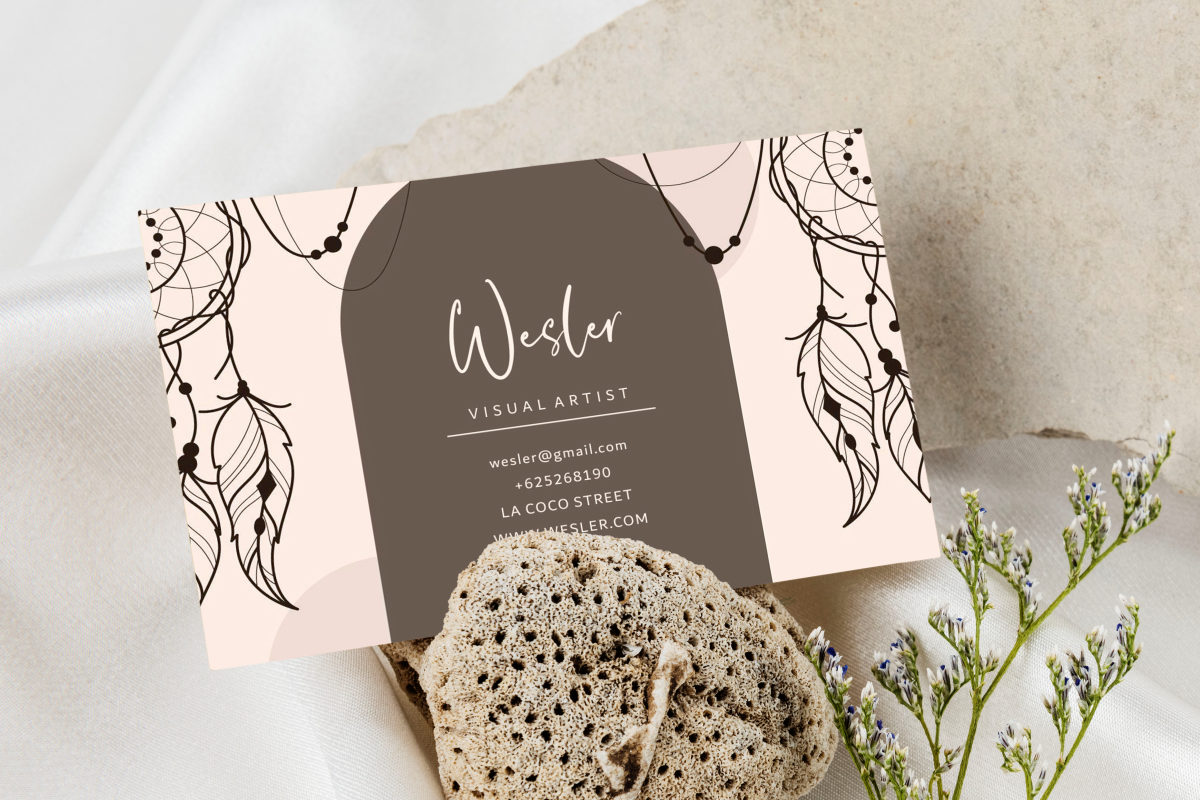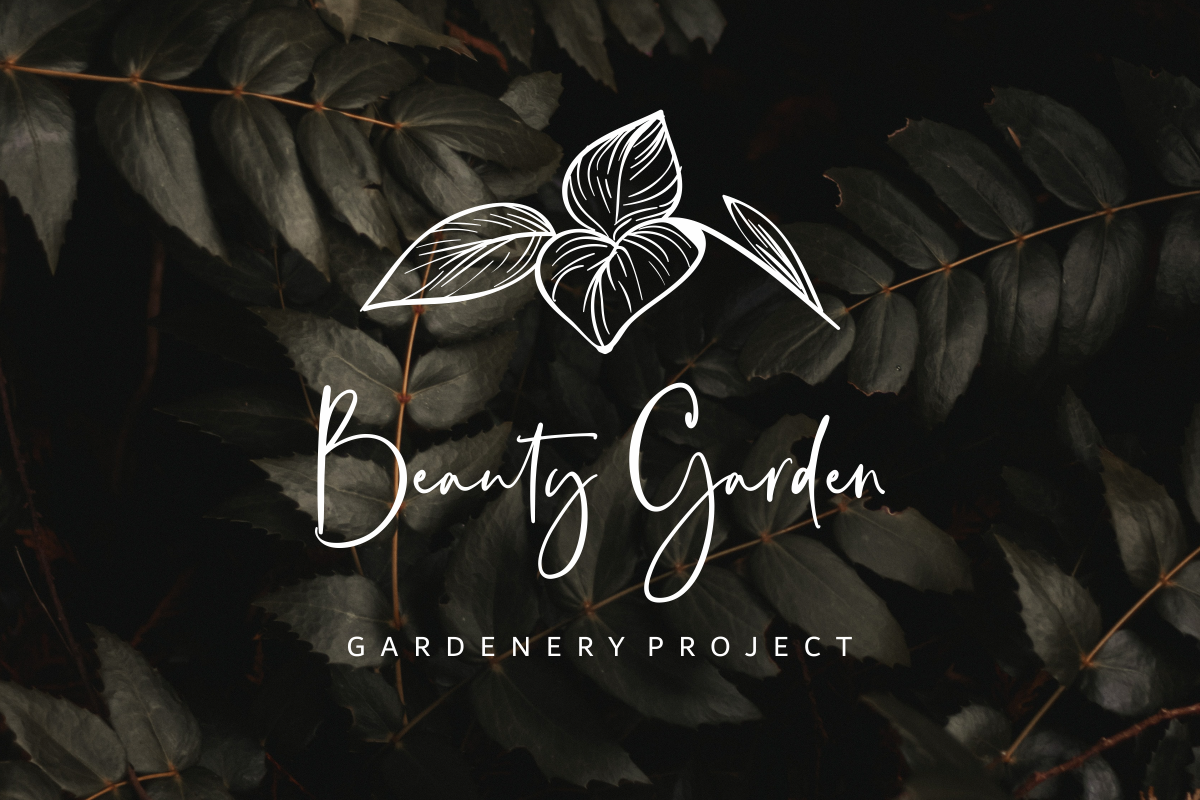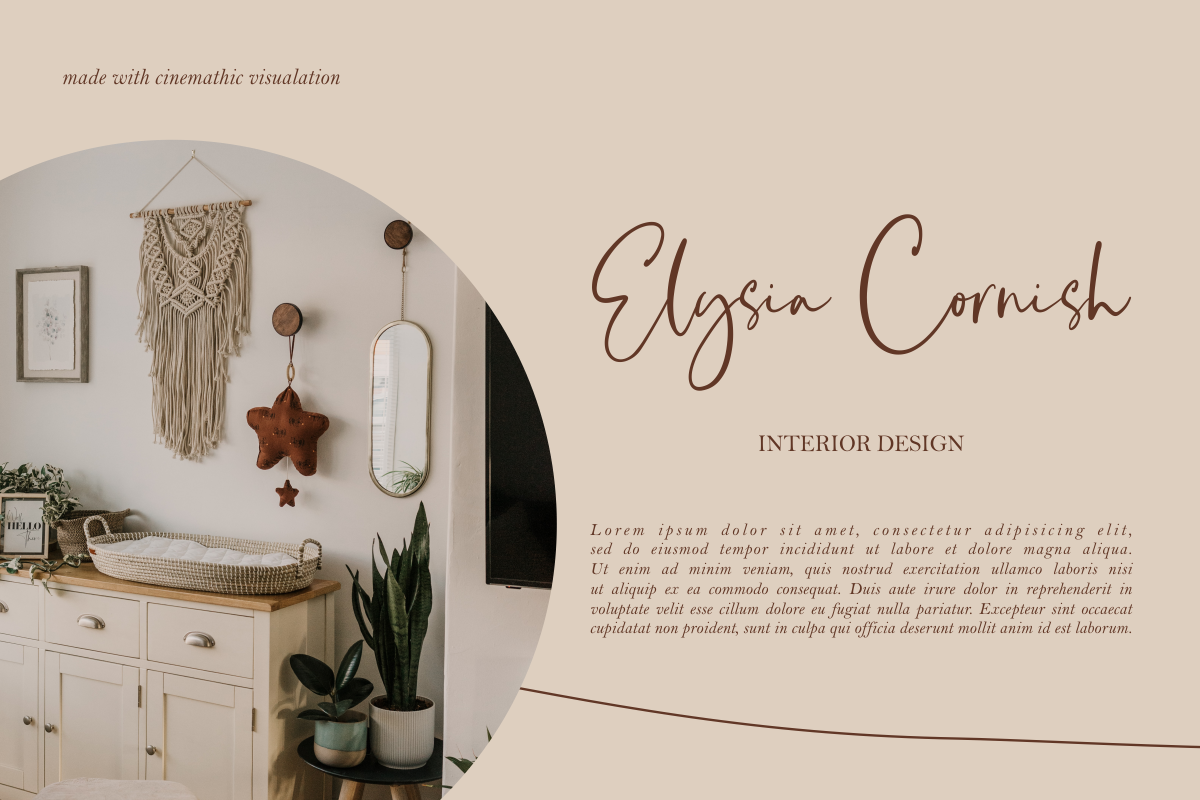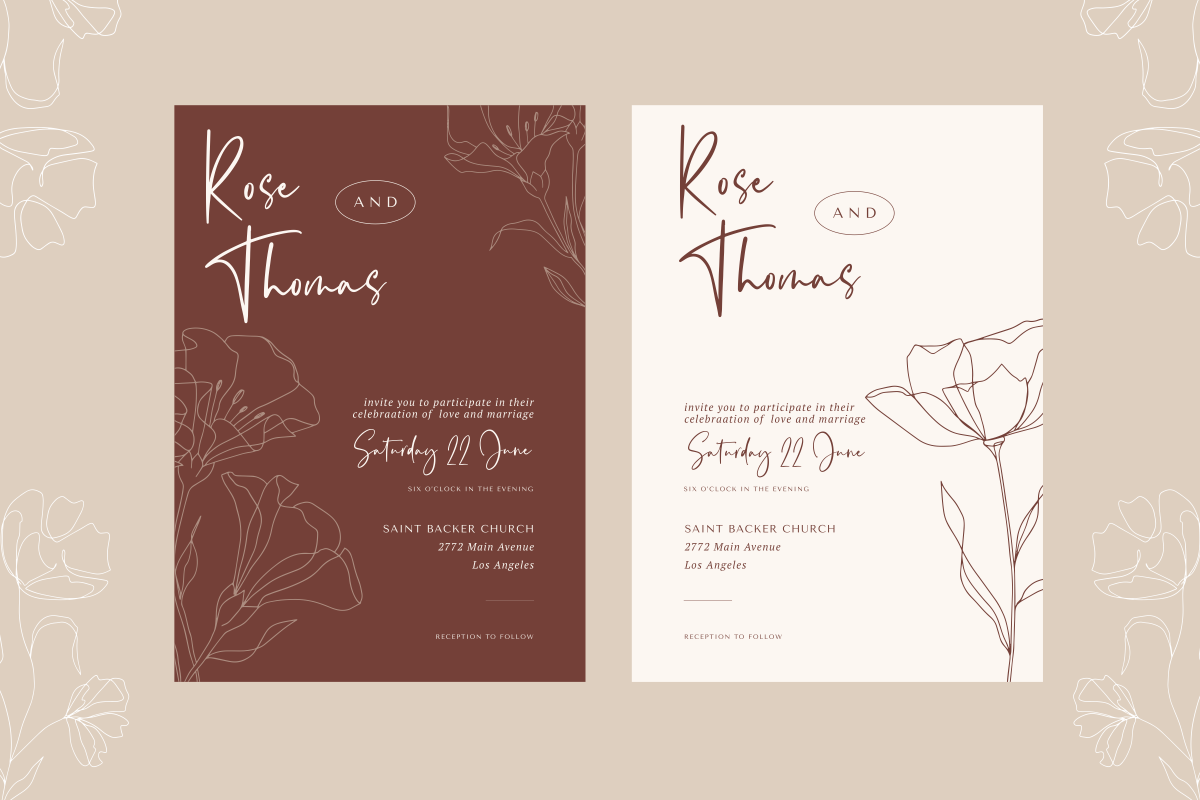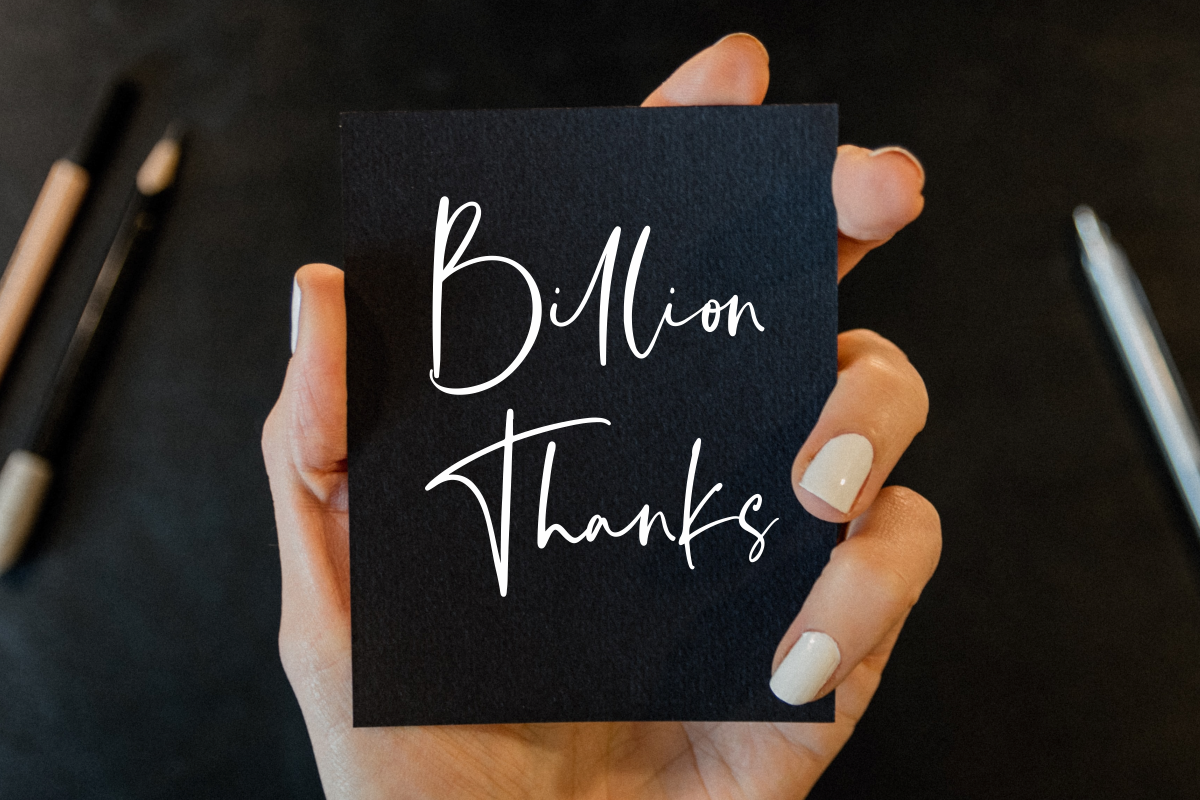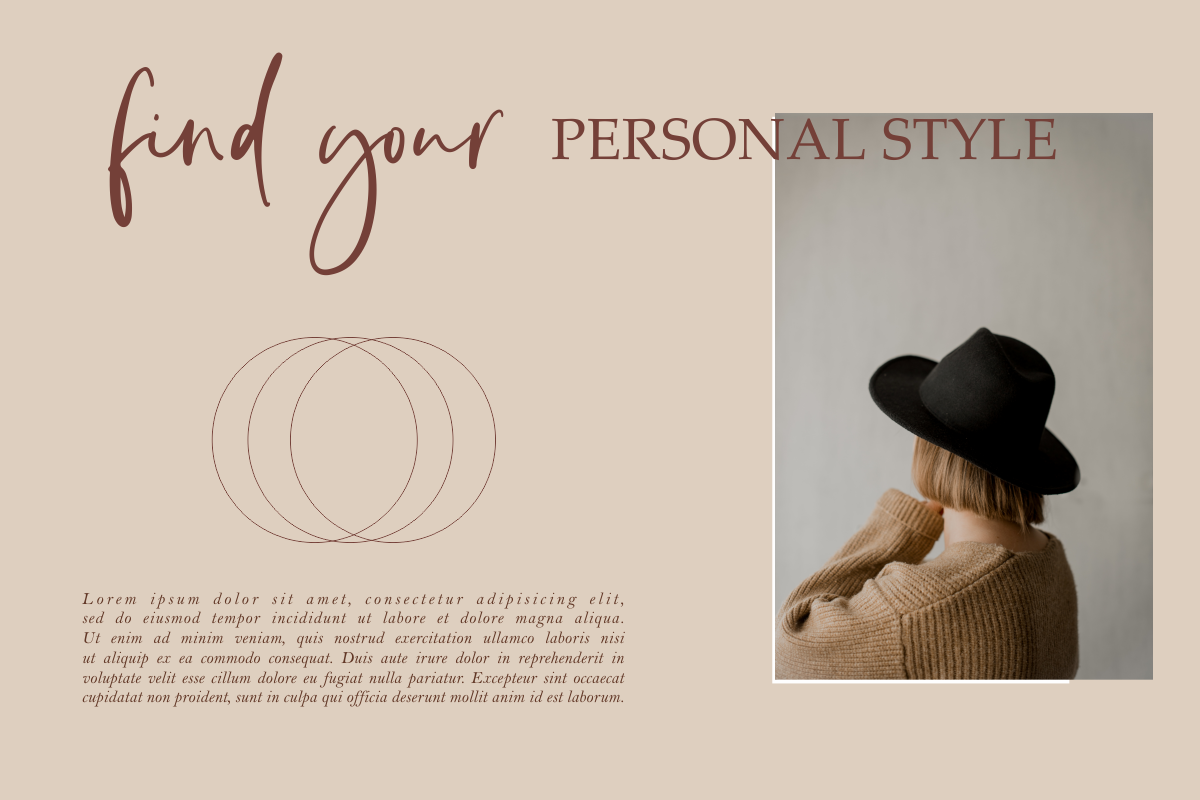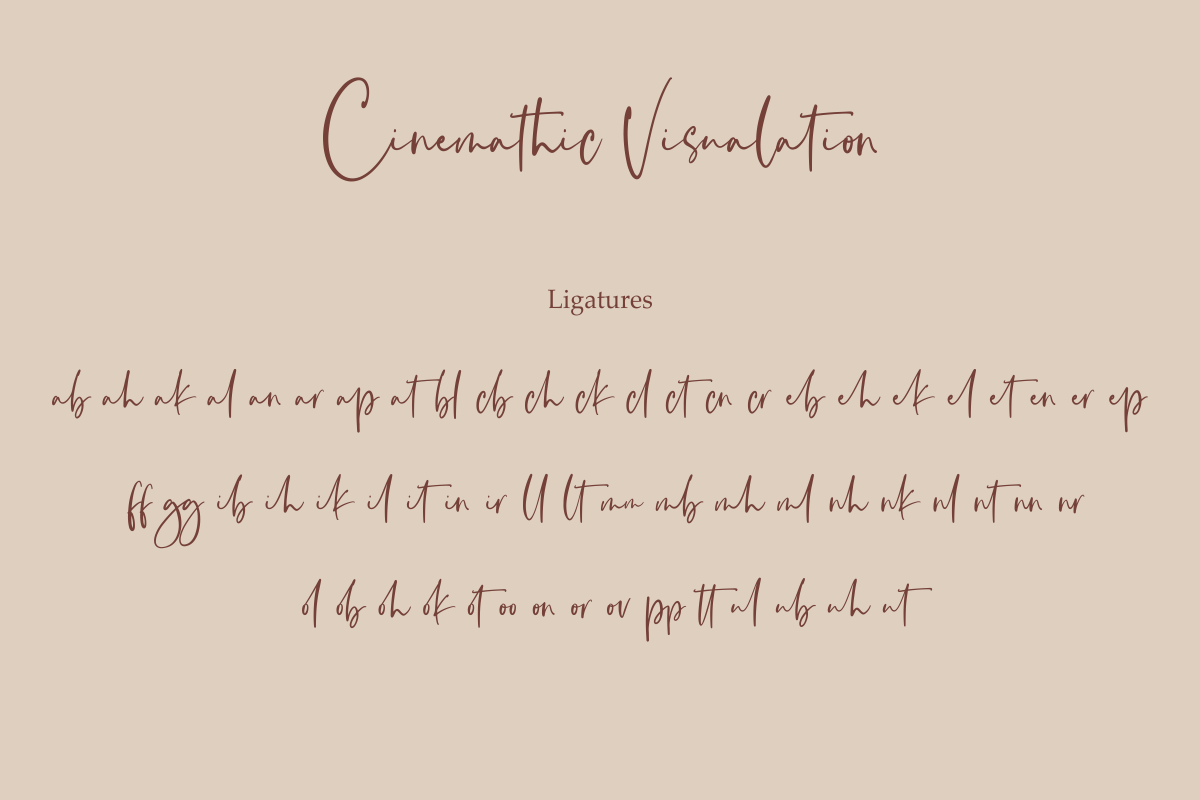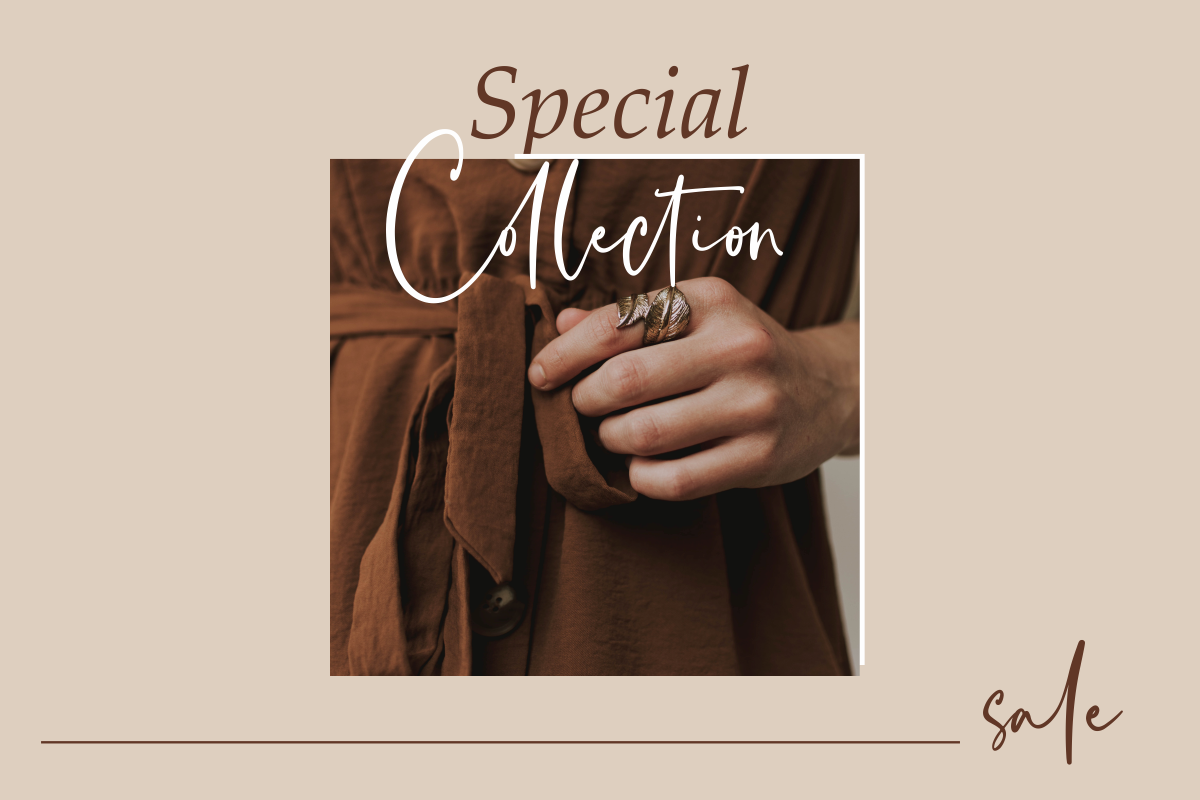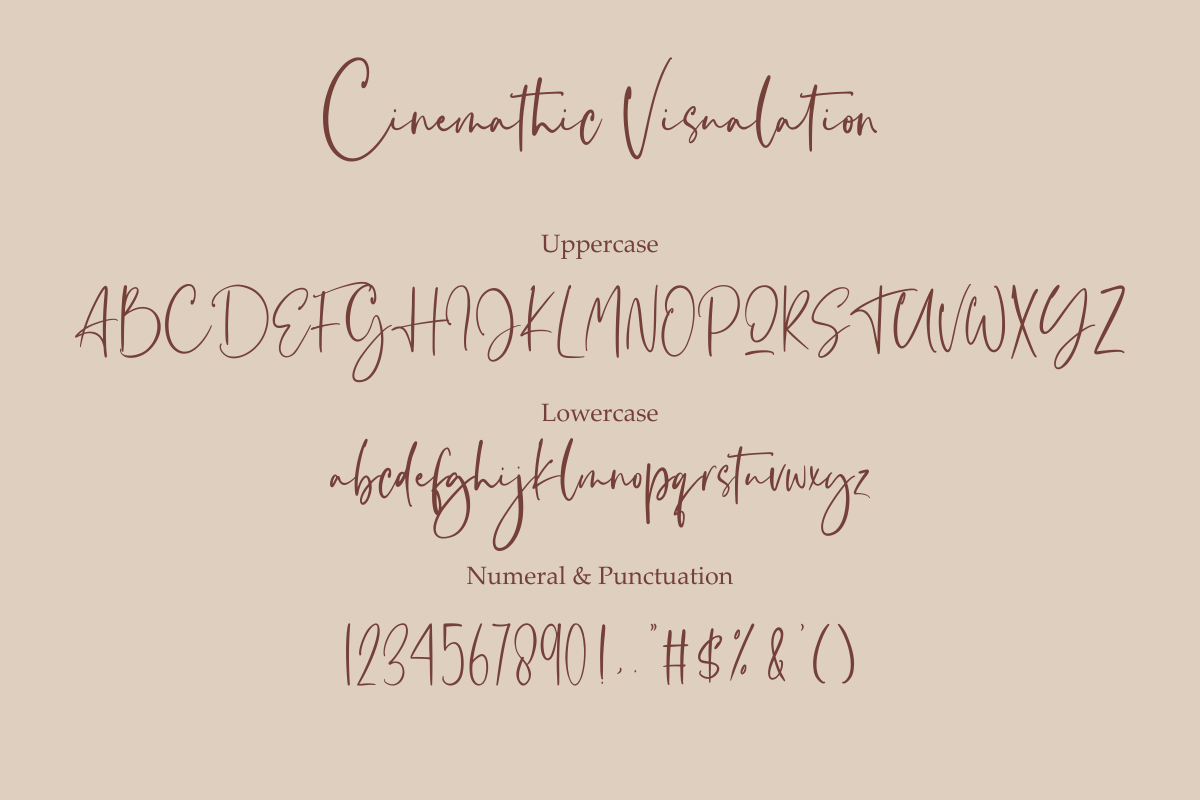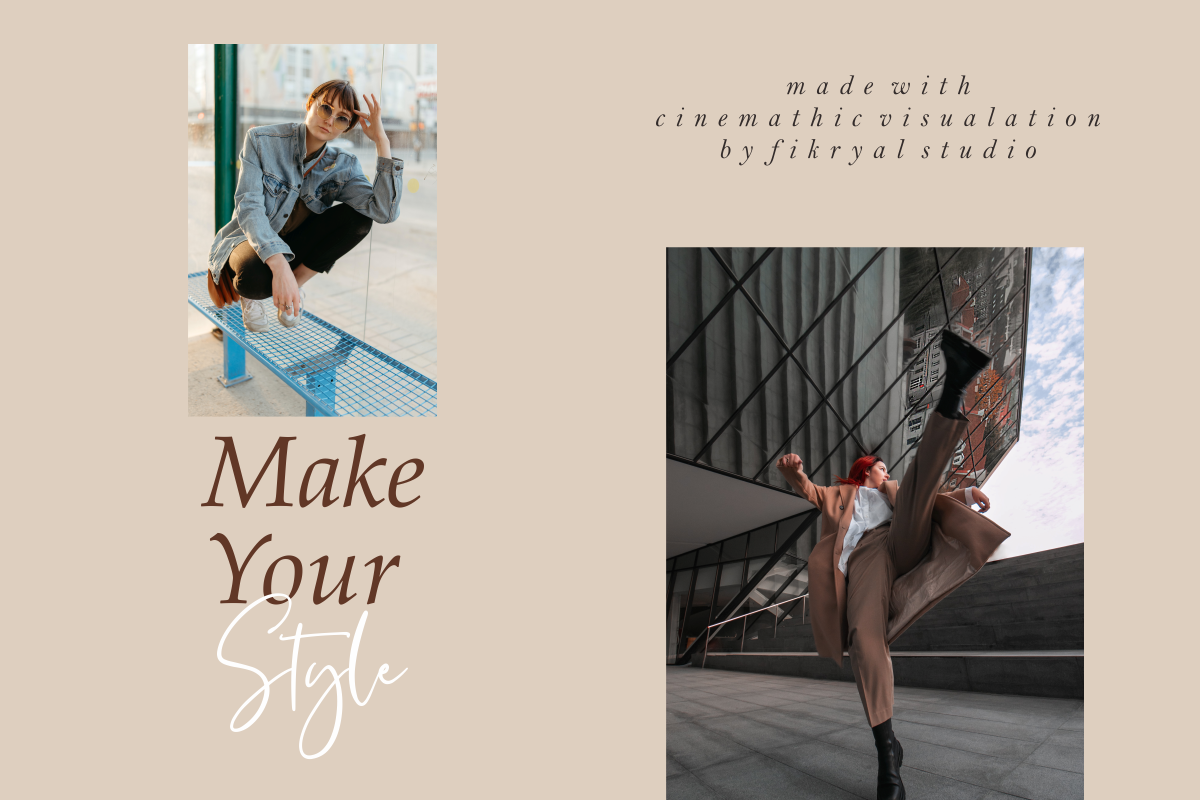
Cinemathic Visualation
Cinemathic Visualation – is a modern handwritten font. This font is made in a modern style, very casual, and suitable for your various design needs. it’s perfect for logo, branding, title, social media posts, advertisements, product packaging, product designs, label, photography, watermark, special event, magazine, web design, etc.
Cinemathic Visualation ( Uppercase, Lowercase ) multilingual support Ligatures If you have any questions please don’t hesitate to contact me